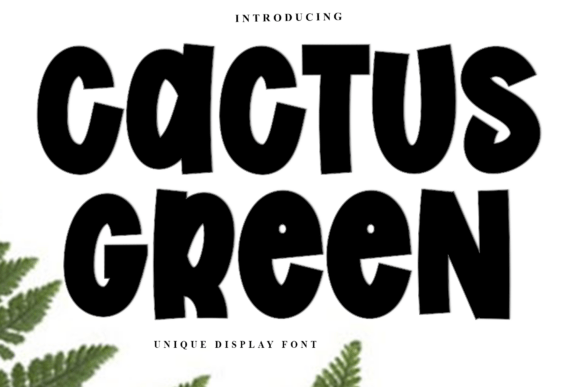
The Magic of Cactus Green Font: A Festive Holiday Typeface
Ah, the holiday season is upon us, and as designers, crafters, and creative hobbyists, we’re always on the lookout for that perfect font to capture the spirit of the season. I still remember the year I was working on a holiday project, and my client asked me to create a festive greeting card that would make their customers feel like they’re unwrapping a gift. The problem was, I was struggling to find the right font that would convey that sense of cheer and nostalgia. That’s when I stumbled upon Cactus Green Font, and it instantly became my go-to typeface for all things holiday.
A Personal Review: What I Love About Cactus Green Font
Cactus Green Font has been a game-changer for my holiday designs, and here’s what I love about it:
- ✨ Festive and merry vibe that’s perfect for the holiday season
- ✅ Decorative elements and whimsical flair that add a touch of enchantment to my designs
- 📚 Perfect for greeting cards, gift tags, and holiday-themed projects
While Cactus Green Font is a fantastic typeface, there are a few things to keep in mind:
- 🤔 Some of the decorative elements can be a bit finicky to work with, especially if you’re new to using OpenType features
- ⚠️ The font may not be suitable for body text or long-form content, as it’s best used for headlines and titles
The Backstory Behind Cactus Green Font
Cactus Green Font was designed by a team of creatives who wanted to capture the magic of the holiday season in a typeface. Inspired by vintage holiday cards and decorations, they created a font that’s both festive and fun. While the design team behind Cactus Green Font may not be well-known, their work has certainly made a splash in the design community.
| Q: What is Cactus Green Font? | A: Cactus Green Font is a festive and merry typeface designed specifically for the holiday season. |